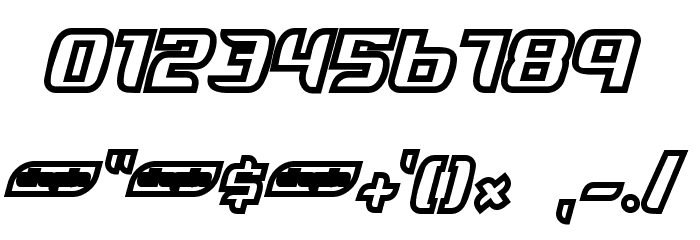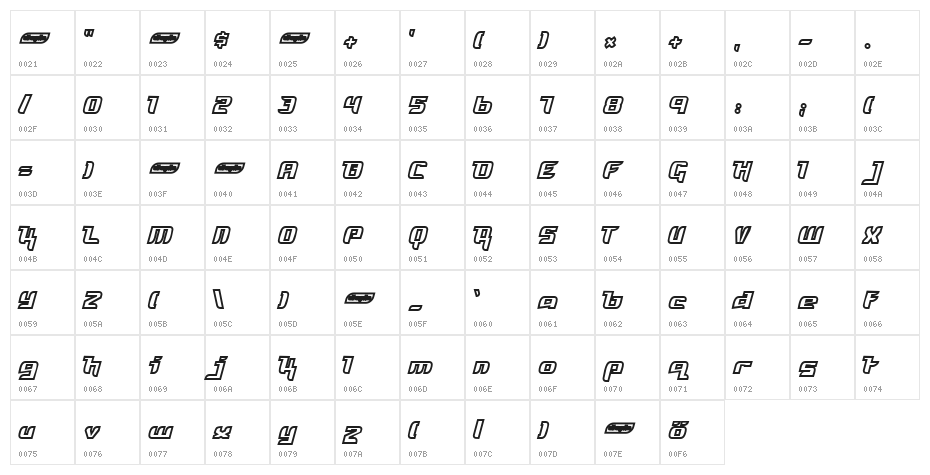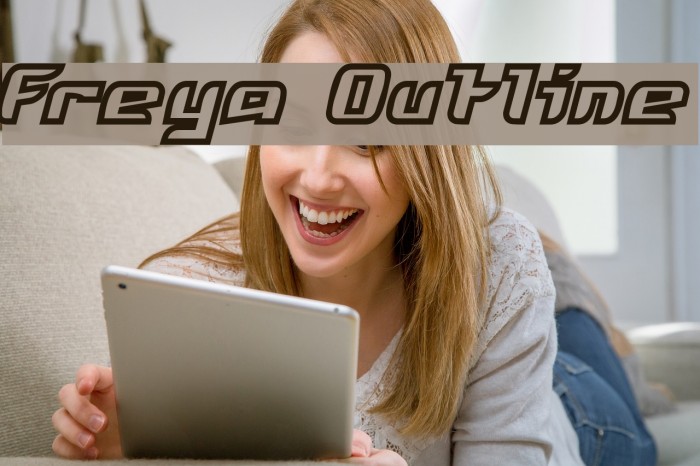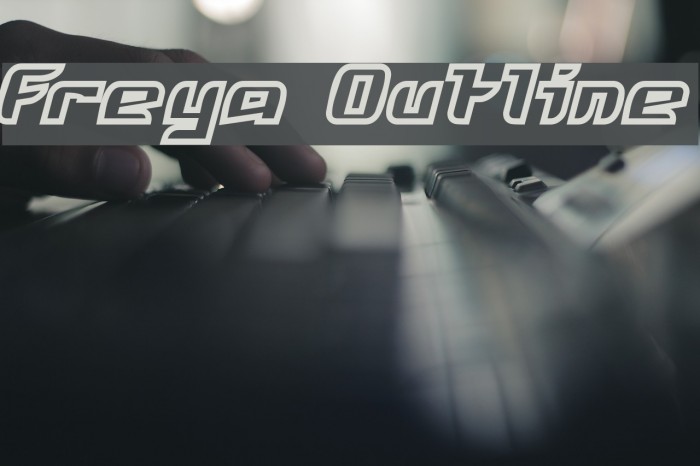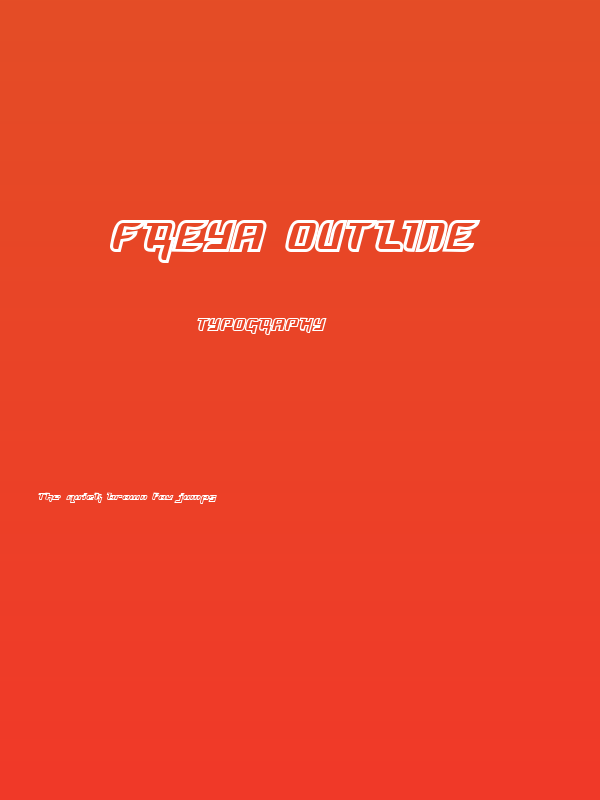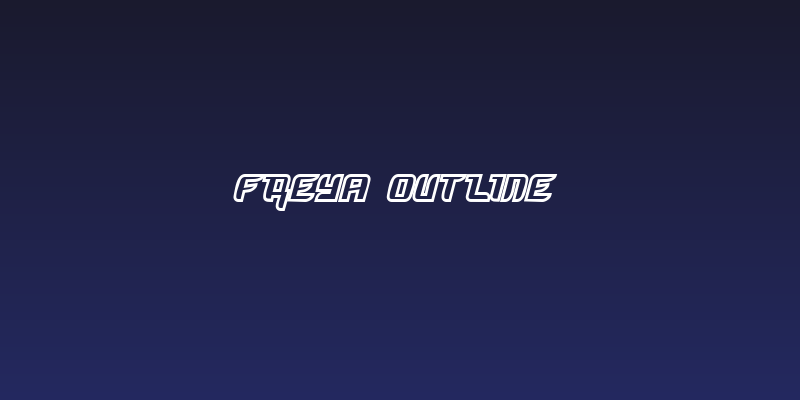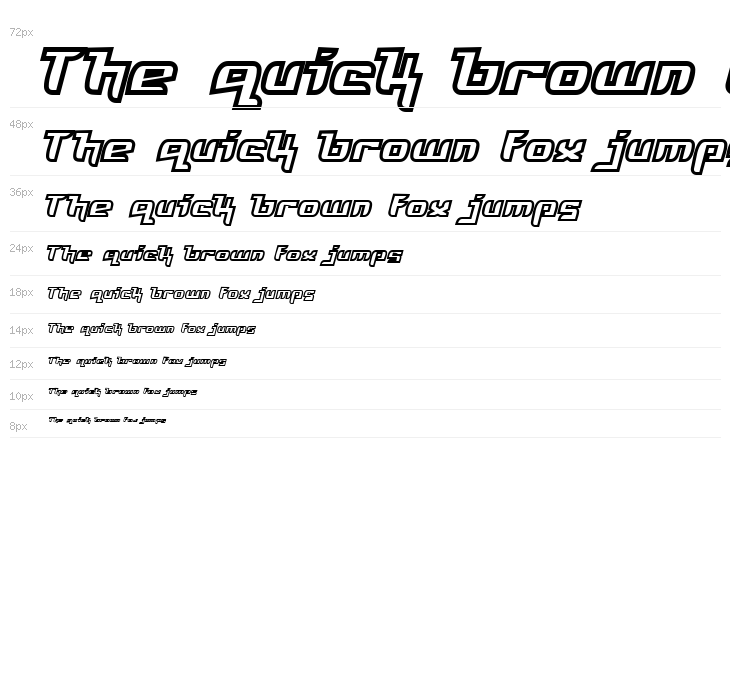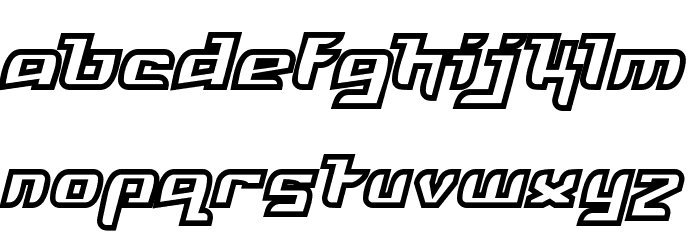
Freya Outline Font
Freya Outline Description
This font features a bold, geometric outline style that gives it a modern and dynamic appearance. The characters are constructed with sharp angles and clean lines, creating a sense of movement and energy. The uppercase and lowercase letters maintain a consistent design, with a slight slant that adds to the font's contemporary feel. The numerals and special characters follow the same stylistic approach, ensuring uniformity across all glyphs. The outline effect provides a unique visual impact, making it suitable for attention-grabbing designs.
| Proposed Projects | Ideal for branding, posters, headlines, and any design requiring a bold, modern touch. |